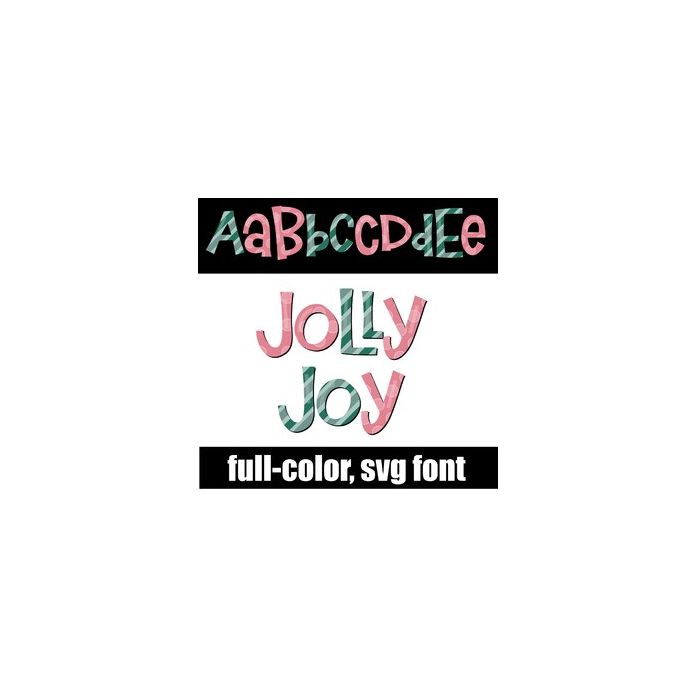
This full color font features a muted Christmas palette and fun ligatures to create some stacked lettering. There is an alt case w/ additional colors you can access through your system or Silhouette's glyph map.